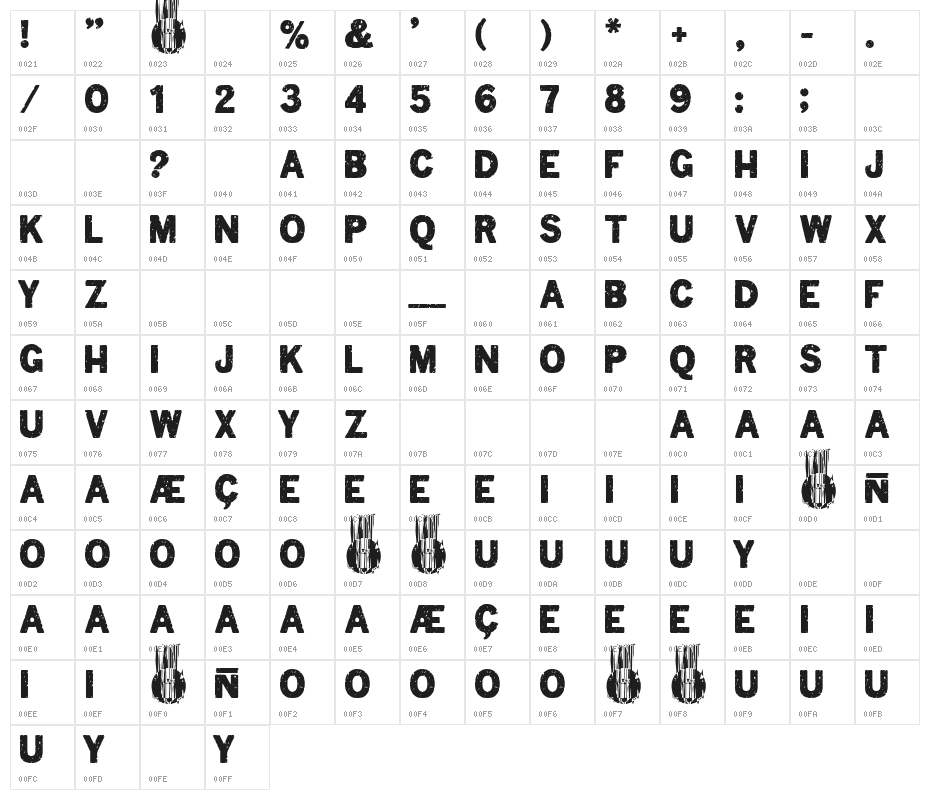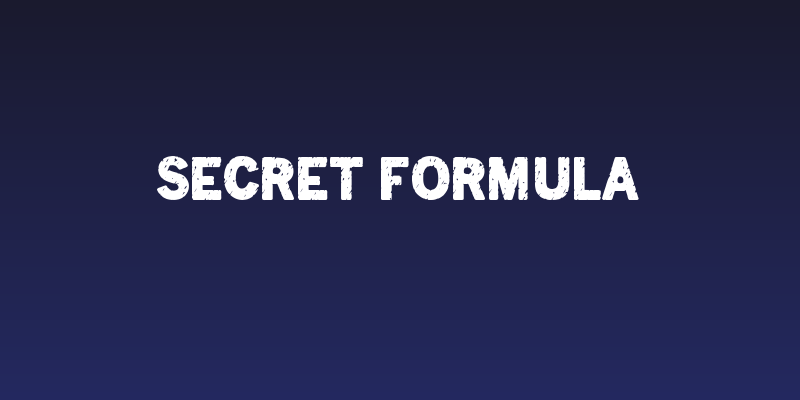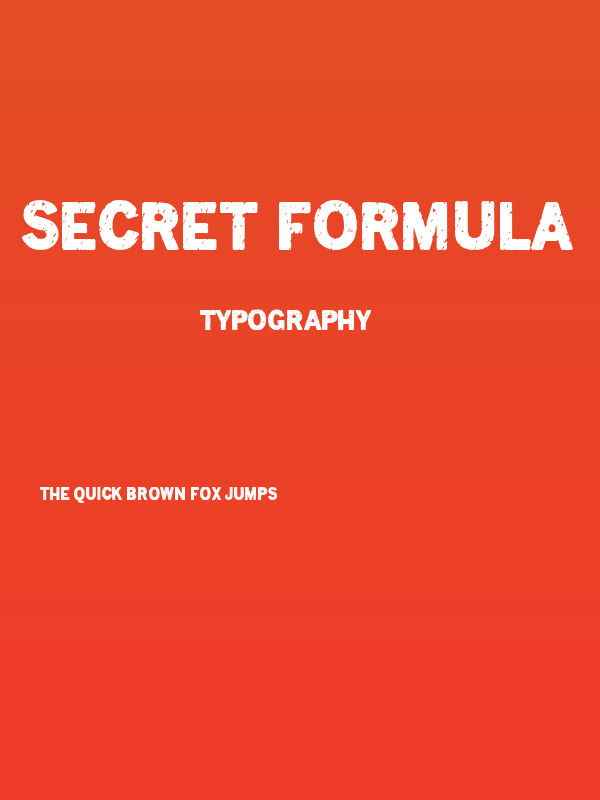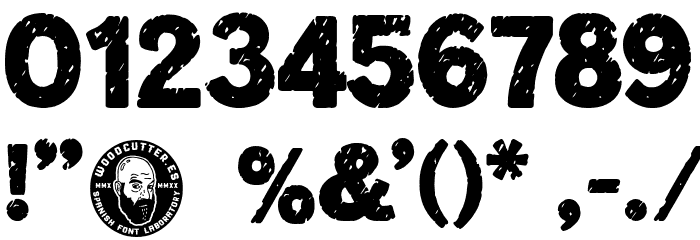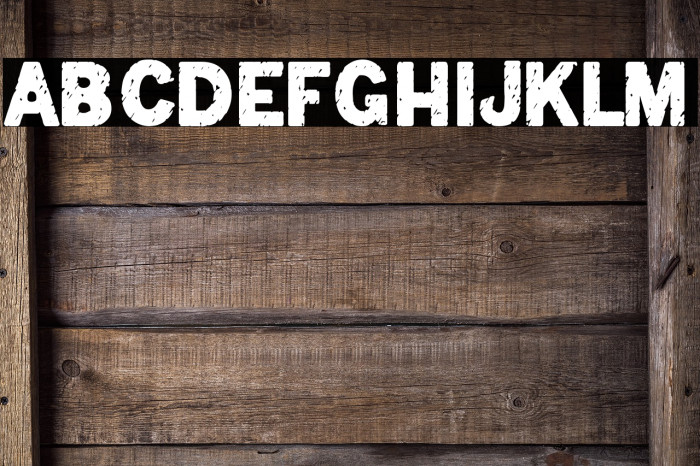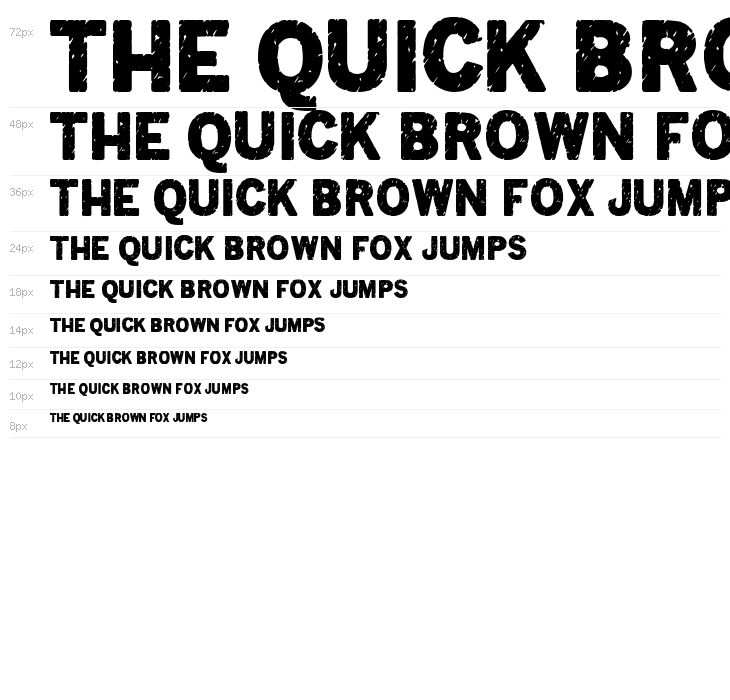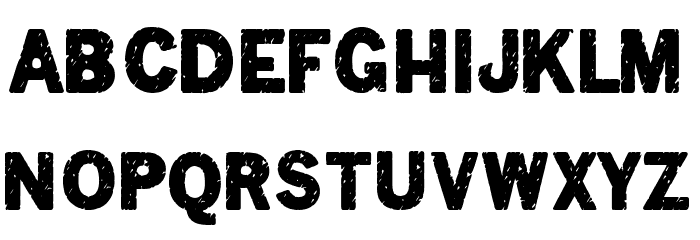
Secret Formula Font
Secret Formula Description
This font features a bold, distressed style with a rough texture that gives it a rugged, vintage appearance. The characters are thick and blocky, with a consistent weight throughout, making them highly legible even with the textured effect. The uppercase and lowercase letters maintain a uniform height, contributing to a cohesive look. Numbers and special characters are designed with the same distressed texture, ensuring a consistent aesthetic across all glyphs. This font's unique style makes it stand out, perfect for projects that require a bold statement.
| Proposed Projects | Ideal for posters, logos, branding, and any design requiring a bold, vintage look. |